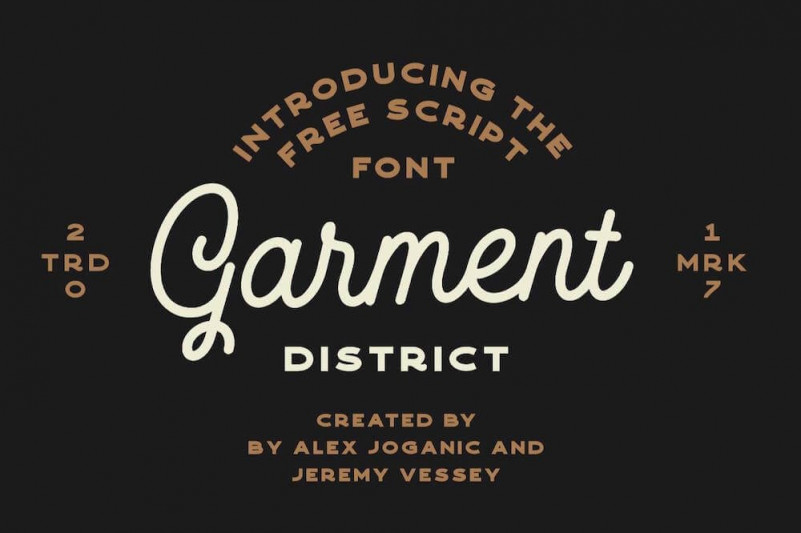
Garment Script Font
This is a sweet and delicate handwritten font manufactured by Hustle Supply Co. and Alex Joganic . Dainty and joyful, this font will be ideal for writing wedding invitations, cards or any other design that may need a romantic, personalized touch!